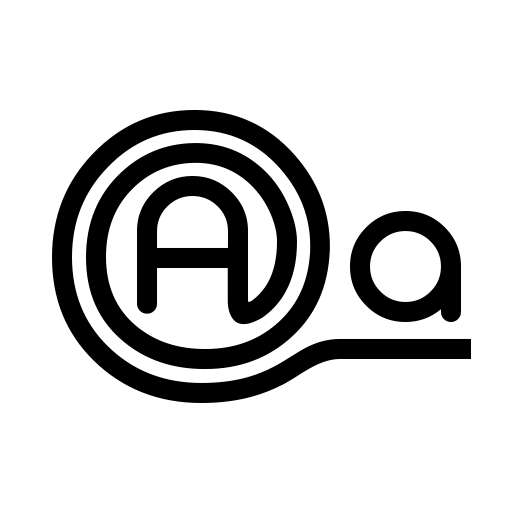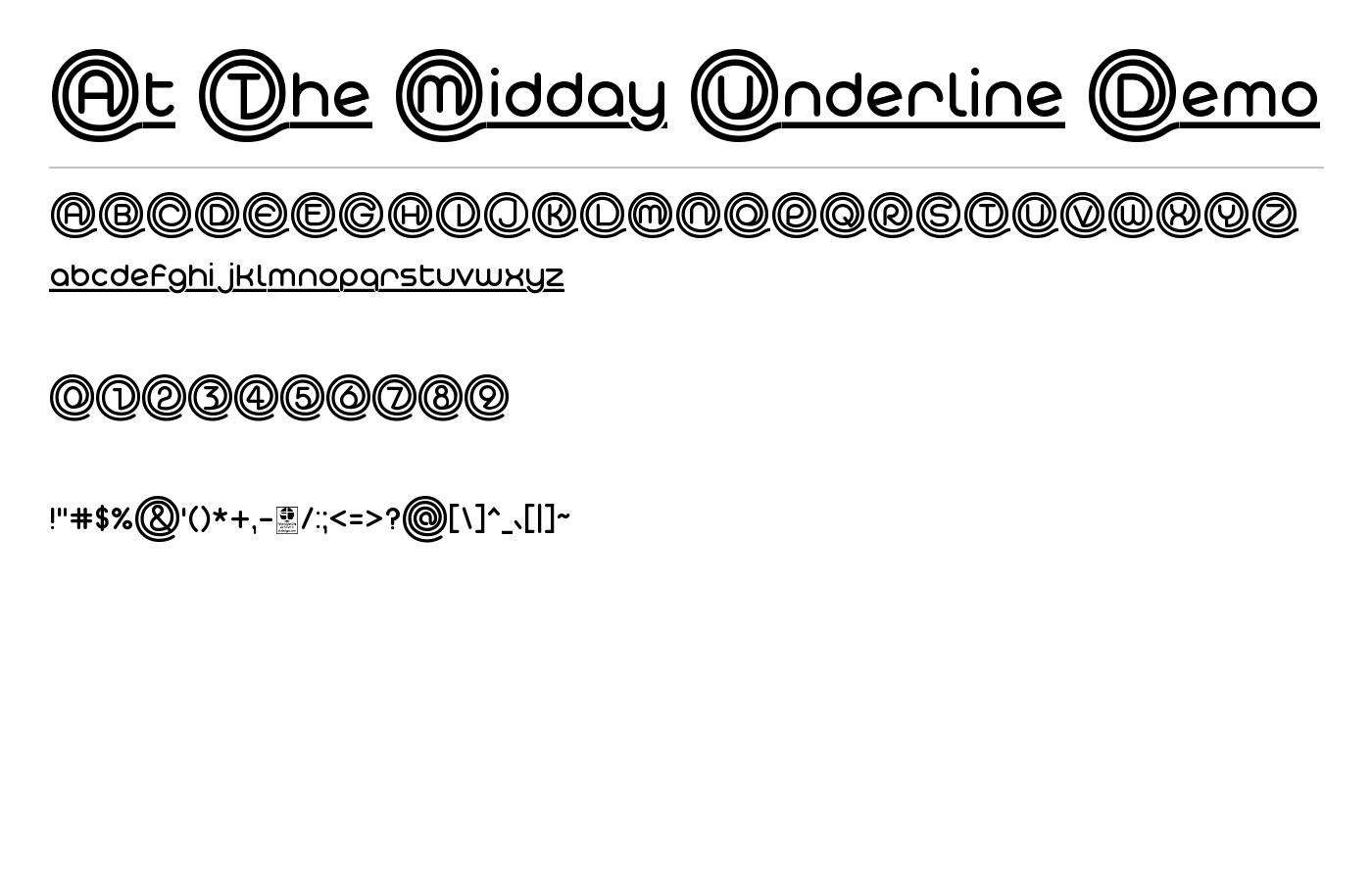
At The Midday Underline Demo is a playful and modern sans serif font featuring unique double-line encircled uppercase letters paired with clean, rounded lowercase characters accented by an underline. Its bold weight, geometric shapes, and consistent line contrast create a distinctive look that feels both fun and stylish, making it ideal for eye-catching logos, posters, or creative branding that seeks a contemporary yet approachable vibe. This font’s quirky personality and clear readability bring a fresh, dynamic energy to any design where originality and visual interest are key.
At The Midday Underline Demo Font
About At The Midday Underline Demo Font
| Font family | At The Midday Underline Demo Font |
| Designer | Mehmet Abacı |